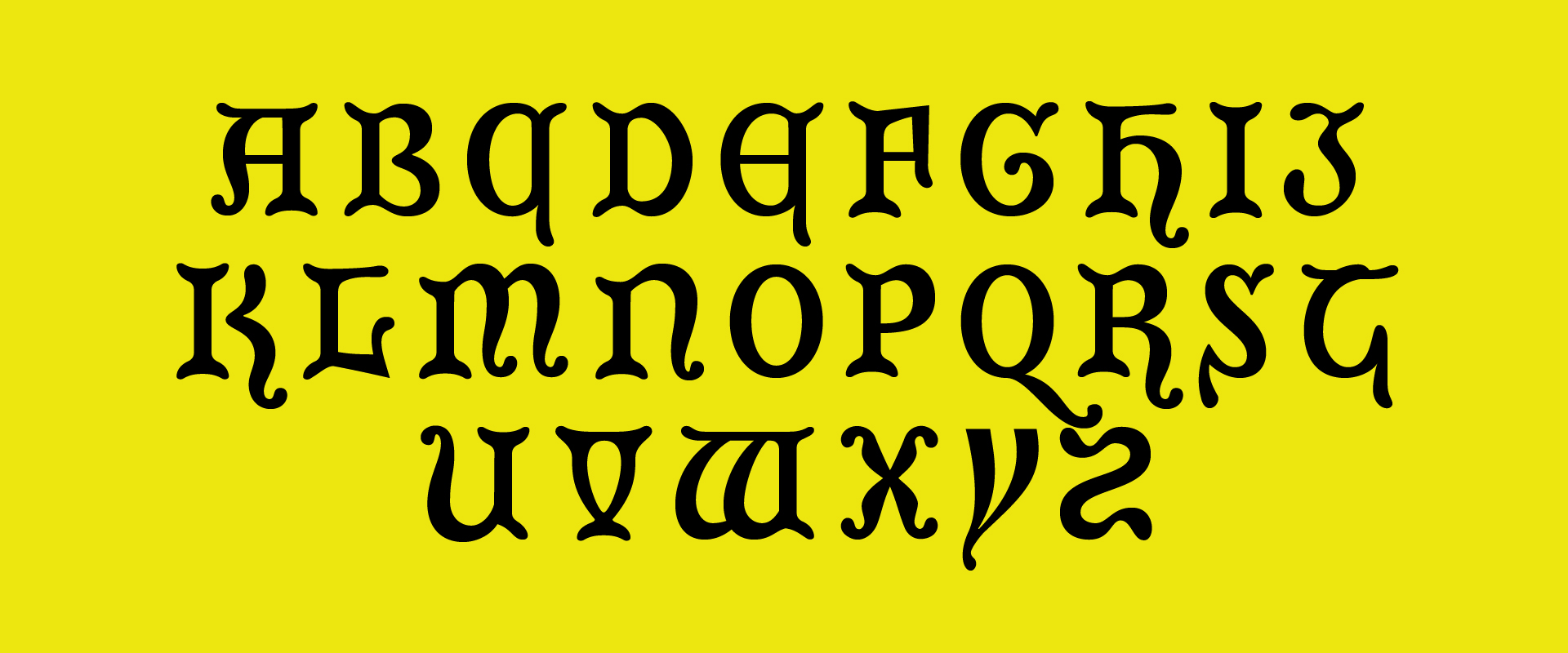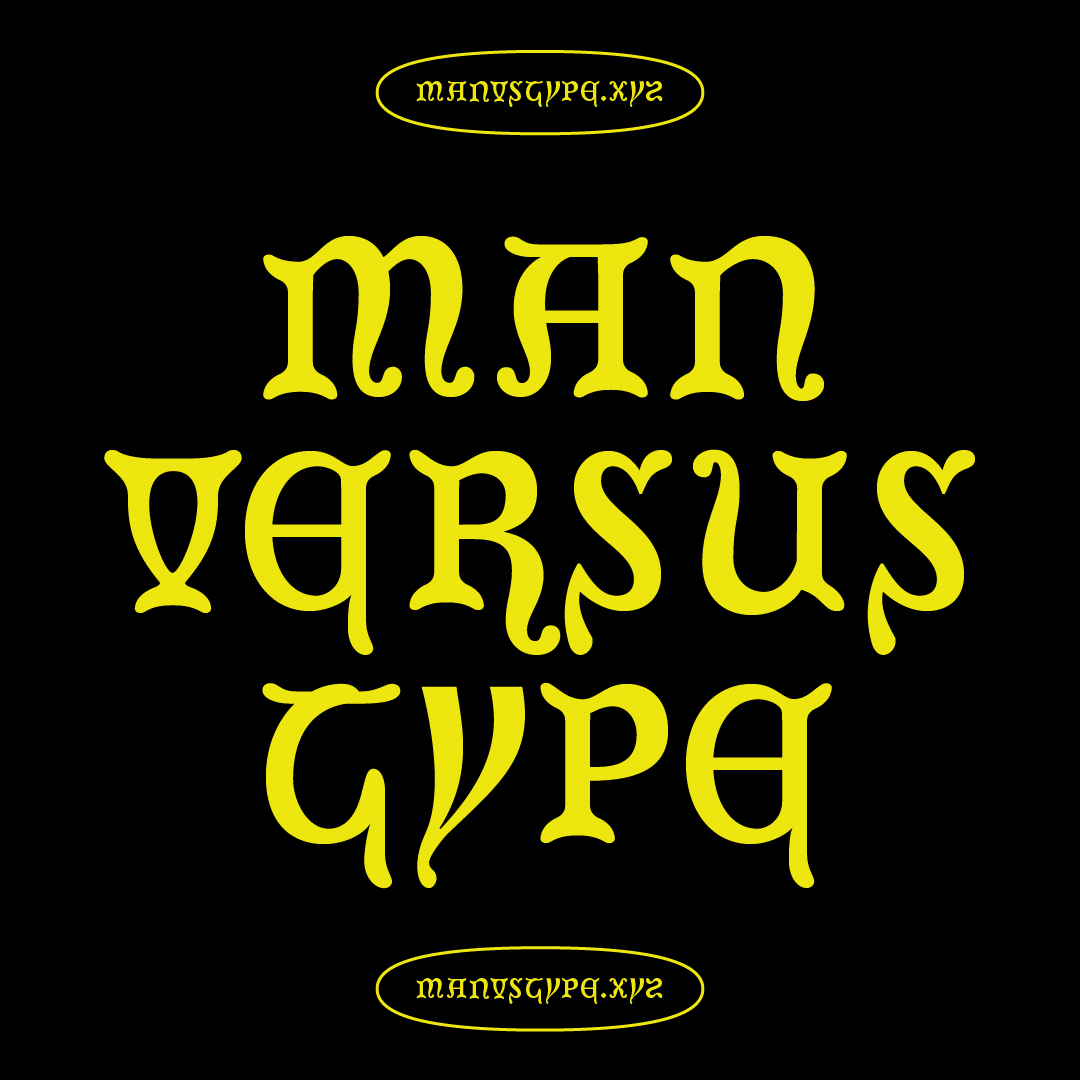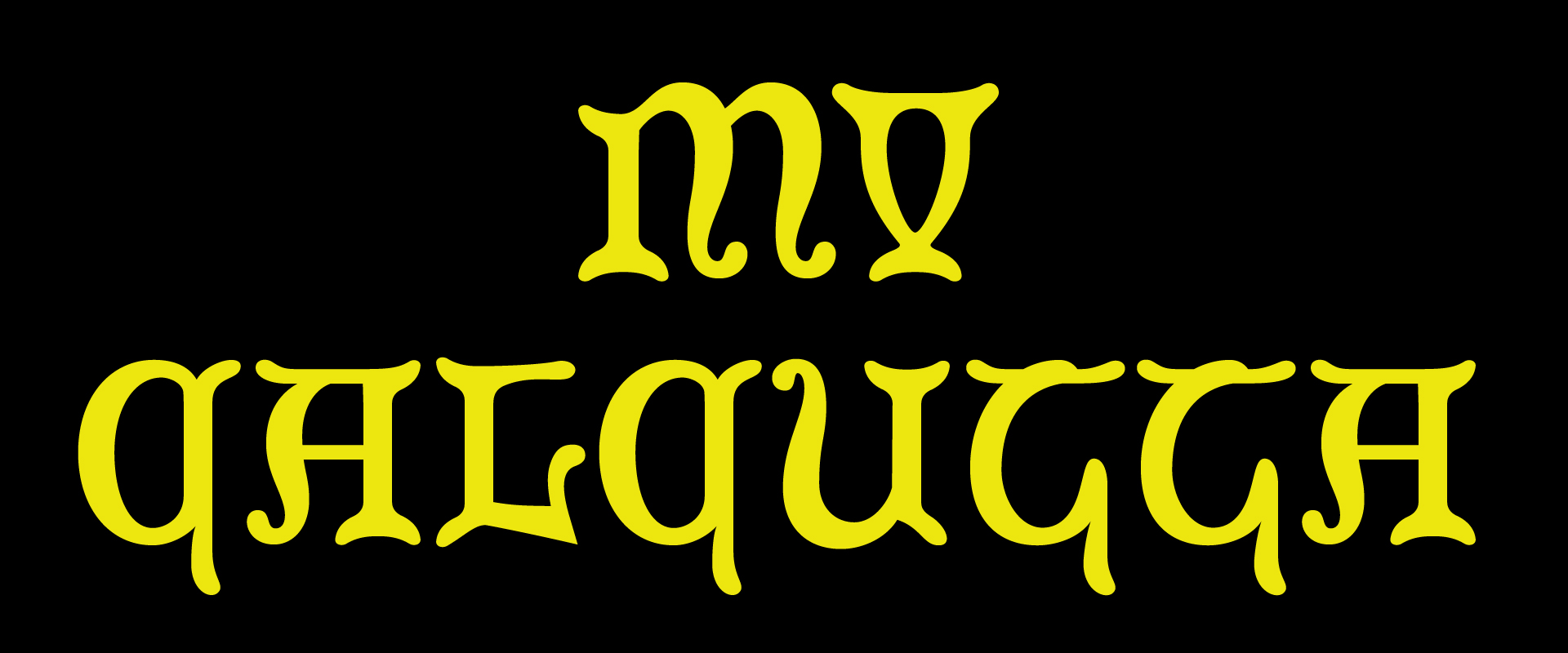
Man Vs Calcutta is a display all-caps typeface that draws inspiration from the engravings I encountered in a church in Calcutta. As photography was not allowed in the church, I had to rely on my memory to bring the intricate designs to life in my typeface.
Originally, the project started as a casual sketch of a few letters, but my passion for the project quickly snowballed into a full-fledged typeface design. The end result was an unexpected yet delightful outcome of my determination and fascination with the Calcutta church engravings.
I hope this typeface captures the beauty and intricacy of the original engravings while also serving as a functional and visually compelling font for all your design needs.